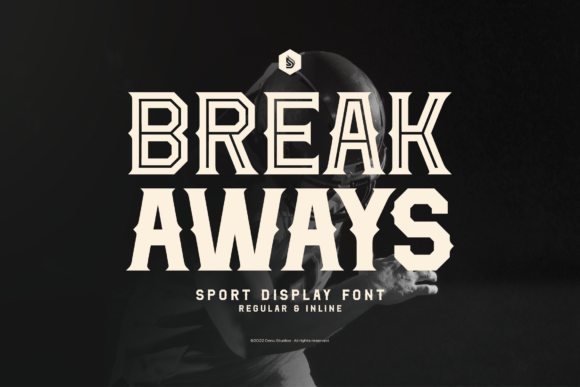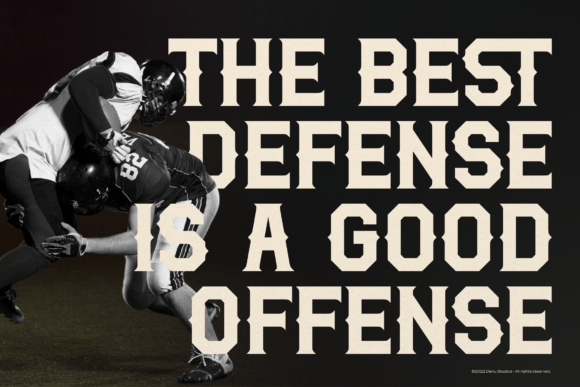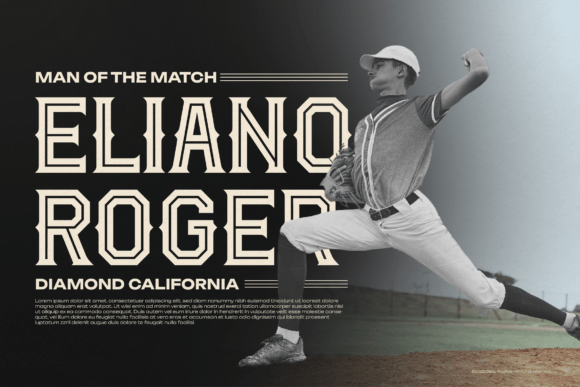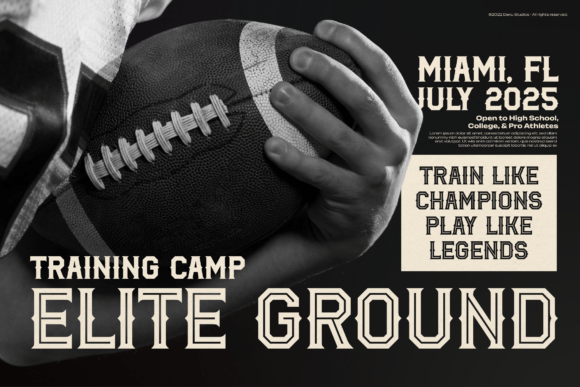
Break Aways Font: A Bold Display Font for Sport Logos & Posters
About the Break Aways Font
Introducing the Break Aways Font, a beautifully crafted typeface designed to elevate your creative projects. Break Aways, is a sports type font, suitable for any projects such as: logos, branding projects, homeware designs, product packaging, mugs, quotes, posters, shopping bags, t-shirts, book covers, name card, invitation cards, greeting cards, label, photography, watermark, special events, and all your other lovely projects that need a Sport Display Font taste.
Break Aways excels as a display font for headlines, posters, and branding applications where a bold, energetic statement is needed. Its strong forms work particularly well for sportswear, athletic events, and projects emphasizing action and dynamism. Avoid using it for body text or UI elements; its weight and character are unsuitable for extended reading.
This font’s personality is undeniably bold and active. To complement this, consider pairing Break Aways with a clean sans-serif like Futura for a modern feel, or a more refined serif like Garamond for a touch of classic elegance. A contrasting script font could add a touch of personality to logos and packaging.
For a more rebellious edge, a geometric sans-serif would create a strong visual counterpoint, while a neutral sans-serif offers versatility across diverse applications. Careful consideration of the overall design context is crucial to maximizing its impact.